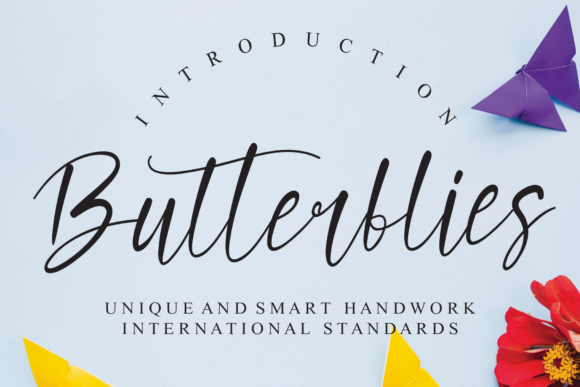
The Perfect Touch: Unlocking the Magic of the Butterflies Font
Have you ever been working on a design project, pouring your heart and soul into every detail, only to feel like something is missing? That’s when the perfect font can make all the difference. It’s like adding the final brushstroke to a beautiful painting, the final note to a symphony, or the perfect sprinkle of fairy dust to a dream come true.
That’s where the Butterflies Font comes in – a stunning, light handwritten font that adds a touch of luxury and elegance to any design project. With its flowing vibe and stunning impact, it’s the perfect choice for designers looking to create a truly unforgettable experience. Whether you’re working on a wedding invitation, a luxury brand campaign, or a beautiful piece of artwork, the Butterflies Font is sure to add that extra special something.
Key Features of “Butterflies Font”
- Unique Characteristics: Hand-drawn illustrations of butterflies and flowers, with intricate details and delicate lines.
Designer Review: Butterflies Font
At first glance, I was drawn to the whimsical and playful nature of the Butterflies Font. ✨ The font’s unique blend of elegance and delicacy makes it perfect for projects that need a touch of sophistication. ✨ I particularly appreciate the wide range of glyphs and characters available, making it a great choice for designers who need to convey complex ideas.
However, there are a few limitations that prevented me from giving the font a perfect score. ⚠️ One of the main issues is the font’s lack of consistency in certain weights. ⚠️ While the bold weight looks great, the regular weight can sometimes appear too thin or washed out. ⚠️ Additionally, the font’s kerning could be improved, particularly when pairing it with other fonts.
- Unique blend of elegance and delicacy
- Wide range of glyphs and characters
- Perfect for projects that need a touch of sophistication
- Wide range of weights and styles available
Overall, I would recommend the Butterflies Font for designers who are looking for a unique and eye-catching typography solution. While it may not be perfect, its strengths far outweigh its weaknesses, making it a great addition to any design project.
The Butterflies Font is ideal for creating whimsical and playful designs. Some common use cases include:
- Wedding stationery and decorations
- Illustrations and graphics for social media
Alternatives to Butterflies Font
Lobster Font is a cursive, script font perfect for adding a touch of elegance to your designs. It’s ideal for use in invitations, greeting cards, and other creative projects where a handwritten feel is desired.
Compared to Butterflies Font, Lobster Font has a more refined and sophisticated look, making it a better choice for formal or high-end designs. While Butterflies Font has a whimsical and playful feel, Lobster Font is more understated and sophisticated.
Pacifico Font is a beautiful, cursive script font inspired by the Pacific coast of Mexico. It’s perfect for use in designs that need a relaxed, beachy vibe, such as travel brochures, restaurant menus, or packaging for outdoor gear.
Compared to Butterflies Font, Pacifico Font has a more laid-back and casual feel, making it a better choice for designs that need to convey a sense of relaxation and ease. While Butterflies Font is more playful and whimsical, Pacifico Font is more laid-back and effortless.
Great Vibes Font is a beautiful, elegant script font that’s perfect for use in designs that need a touch of sophistication and glamour. It’s ideal for use in high-end fashion designs, luxury branding, or other creative projects where a refined and polished look is desired.
Q: What is the recommended line spacing for the Butterflies Font?
The recommended line spacing for the Butterflies Font is 1.2 to 1.5 times the font size. This line spacing ensures proper readability and balance, making it suitable for body text in print and digital media. However, line spacing may vary depending on the specific application and design requirements.